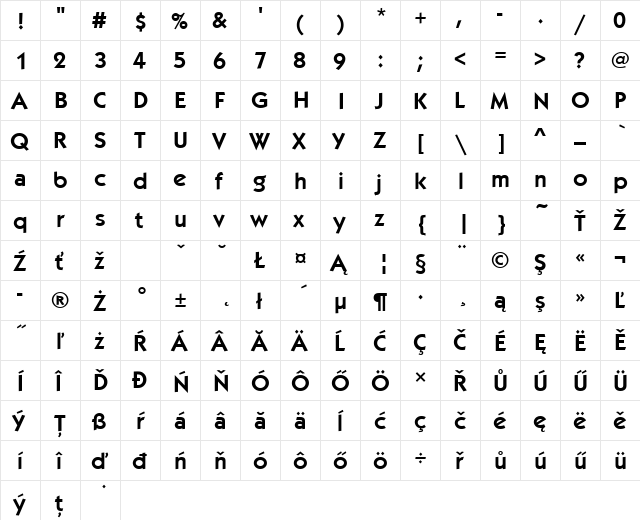
KabelItcTEEDem Regular Font Preview
KabelItcTEEDem Regular
Design Context for KabelItcTEEDem Typeface
KabelItcTEEDem is a composed and adaptable typeface that performs quietly and consistently across a wide range of design contexts.